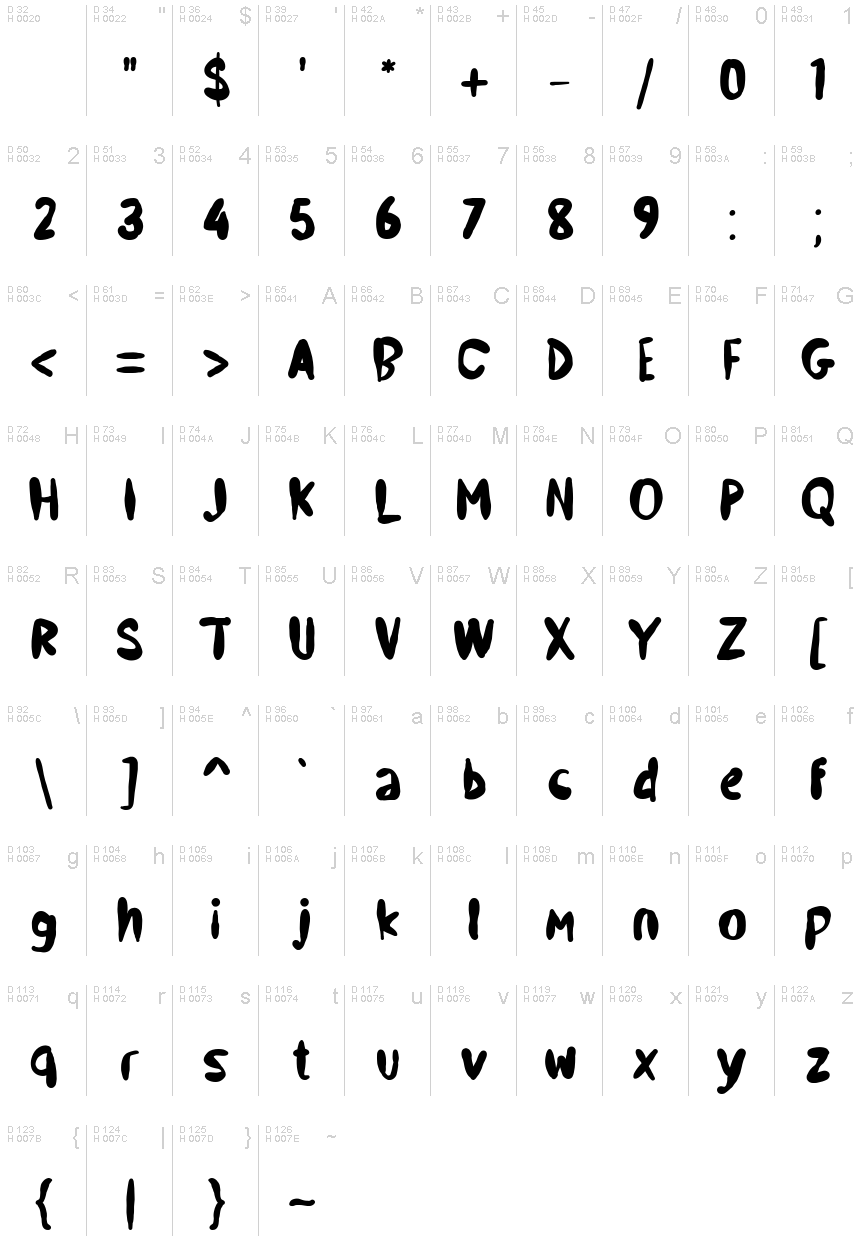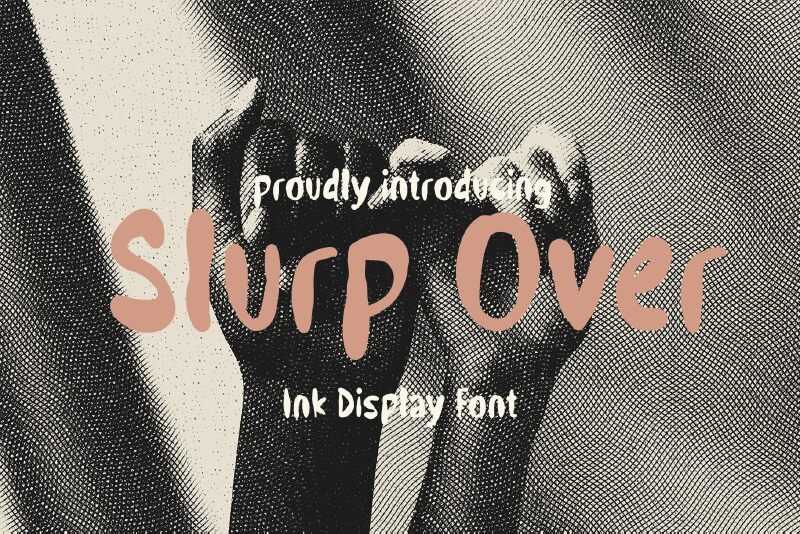
Slurp Over - Demo
The Slurp Over font exudes a captivating, organic charm that instantly captivates the eye. Crafted with a bold, brush-like stroke, this typeface effortlessly blends the rawness of handwritten expression with a refined, modern aesthetic. Each character possesses a unique fluidity, seamlessly transitioning from thick to thin strokes, creating a mesmerizing visual rhythm that evokes a sense of movement and energy.
Slurp Over's versatility shines through its ability to seamlessly integrate into a wide range of design contexts. Its bold, expressive nature lends itself well to branding, packaging, and editorial design, where it can add a touch of personality and visual interest to headlines, logos, and other prominent typographic elements. The font's adaptability also makes it an excellent choice for social media, digital marketing campaigns, and creative projects where a standout, attention-grabbing typeface is desired.